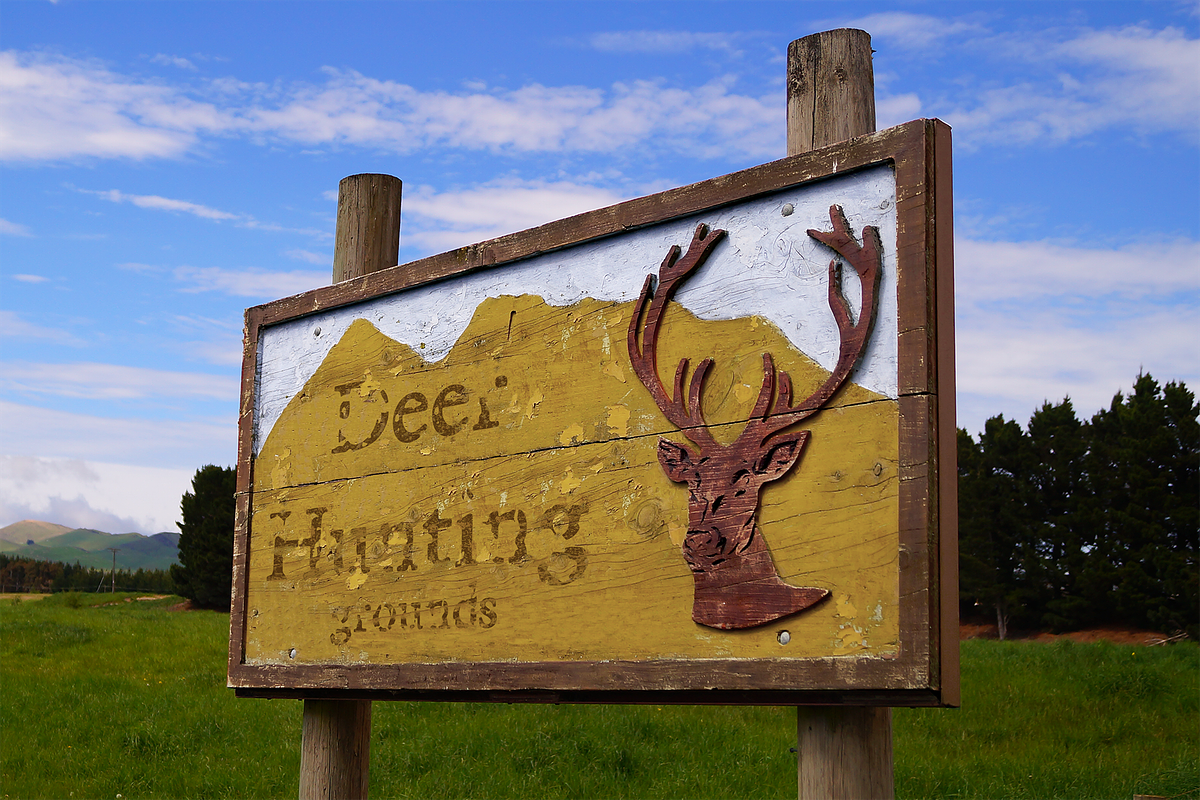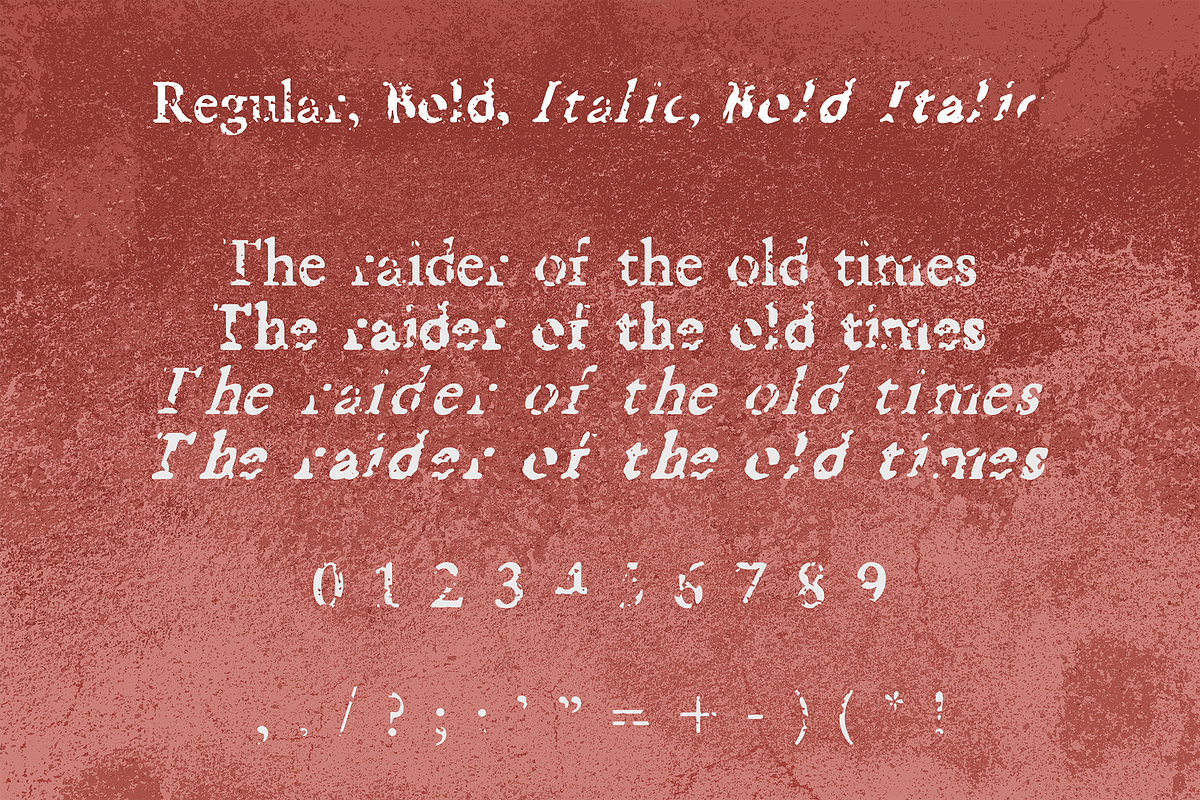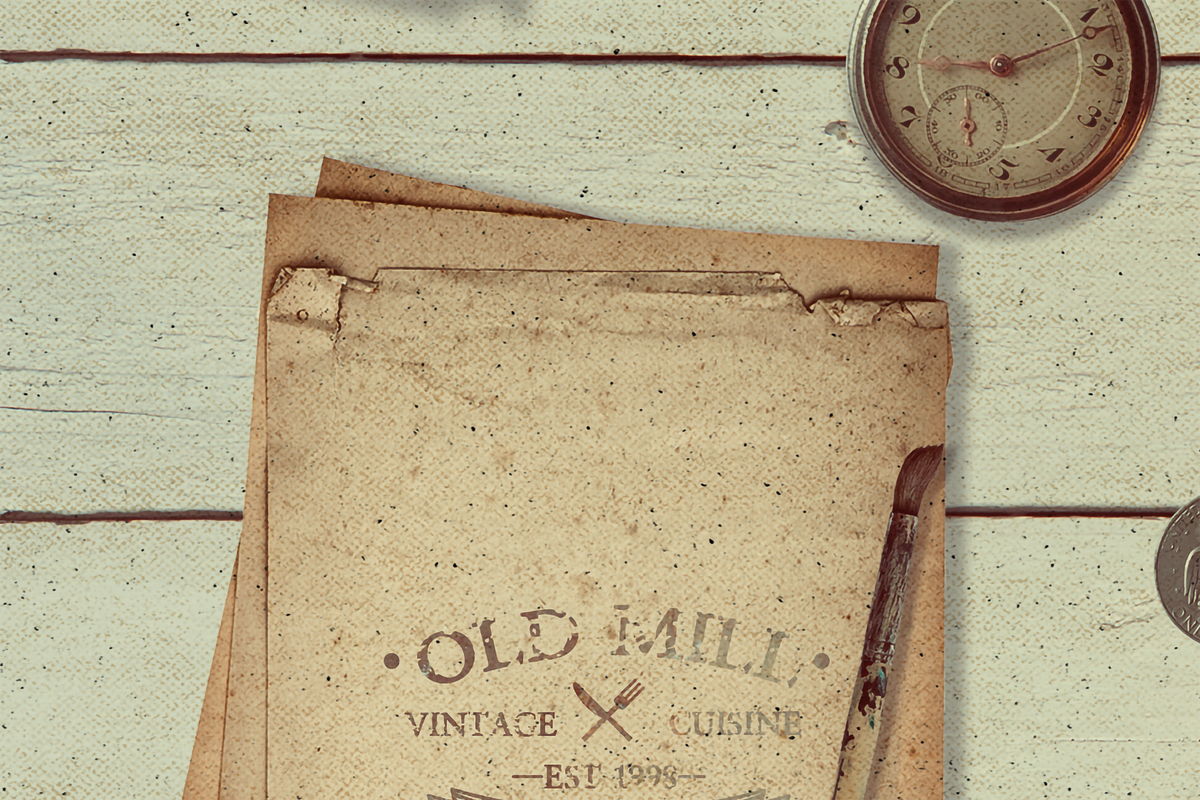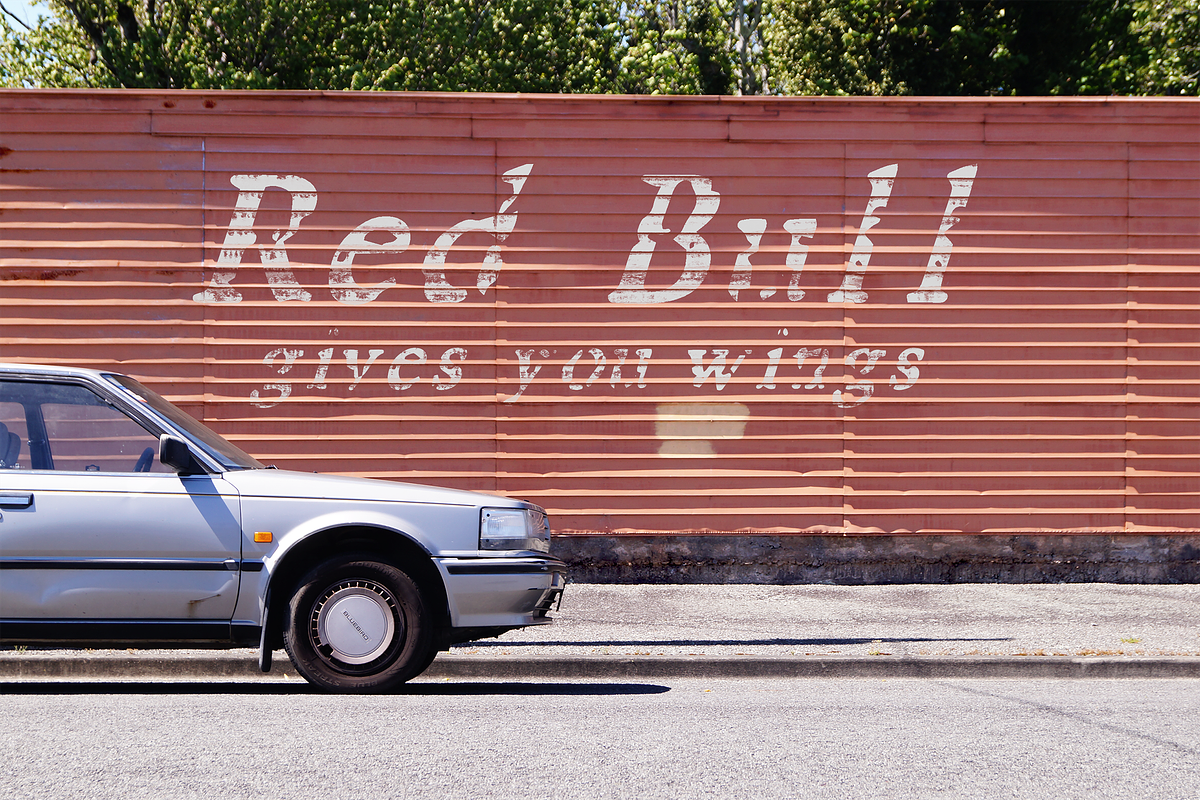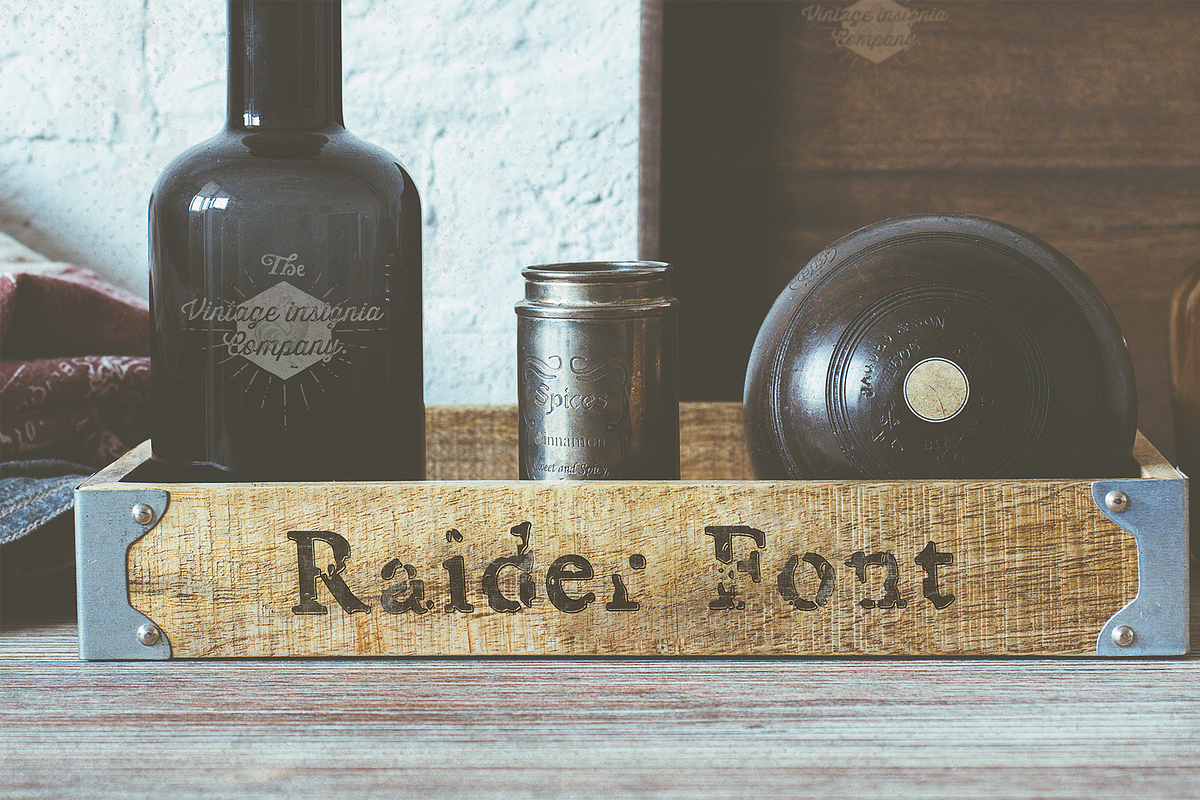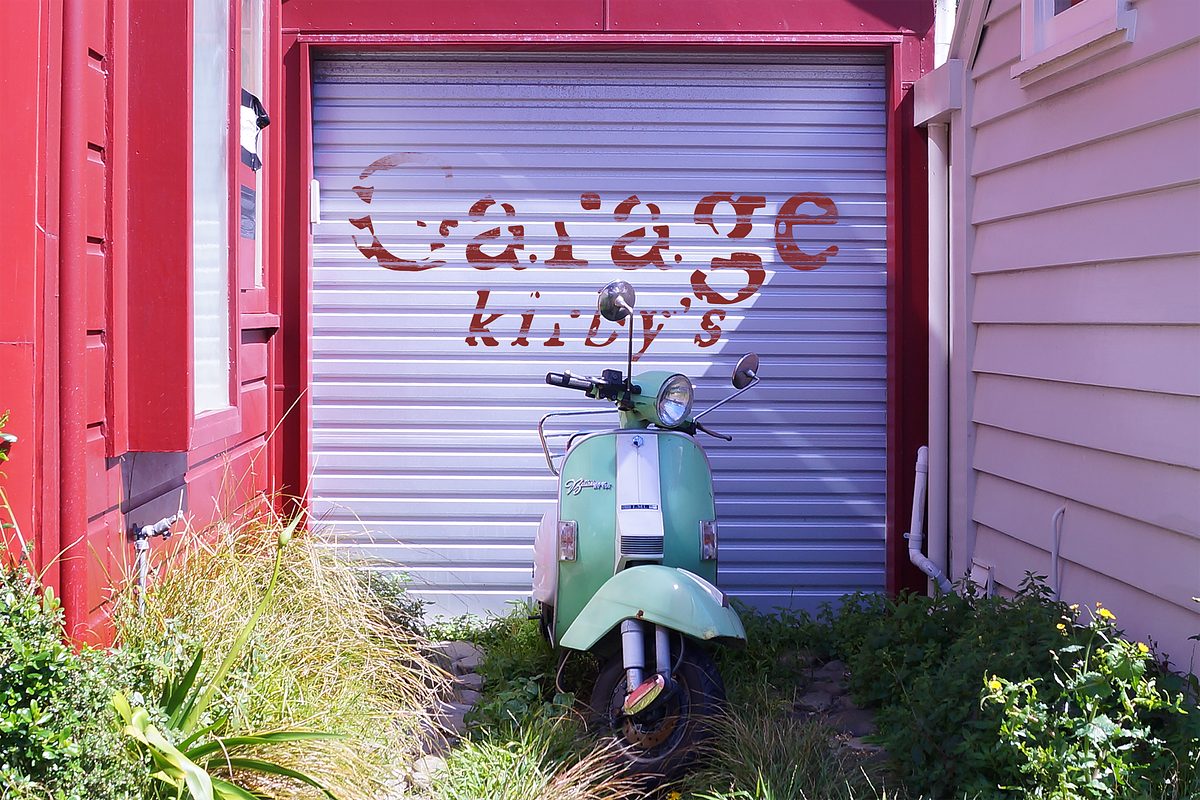
Raider, A Vintage Rugged Font
The Raider is a rugged and torn font which adds vintage look to your templates and designs. The raider font comes in regular, bold, italic and bold-italic formats. It includes the capital and small letters as well as numerals and a large range of punctuation.
This font is best for :
- Creating vintage templates for any product.
- Creating an eye catching header.
- Giving a rugged and old look to your templates.